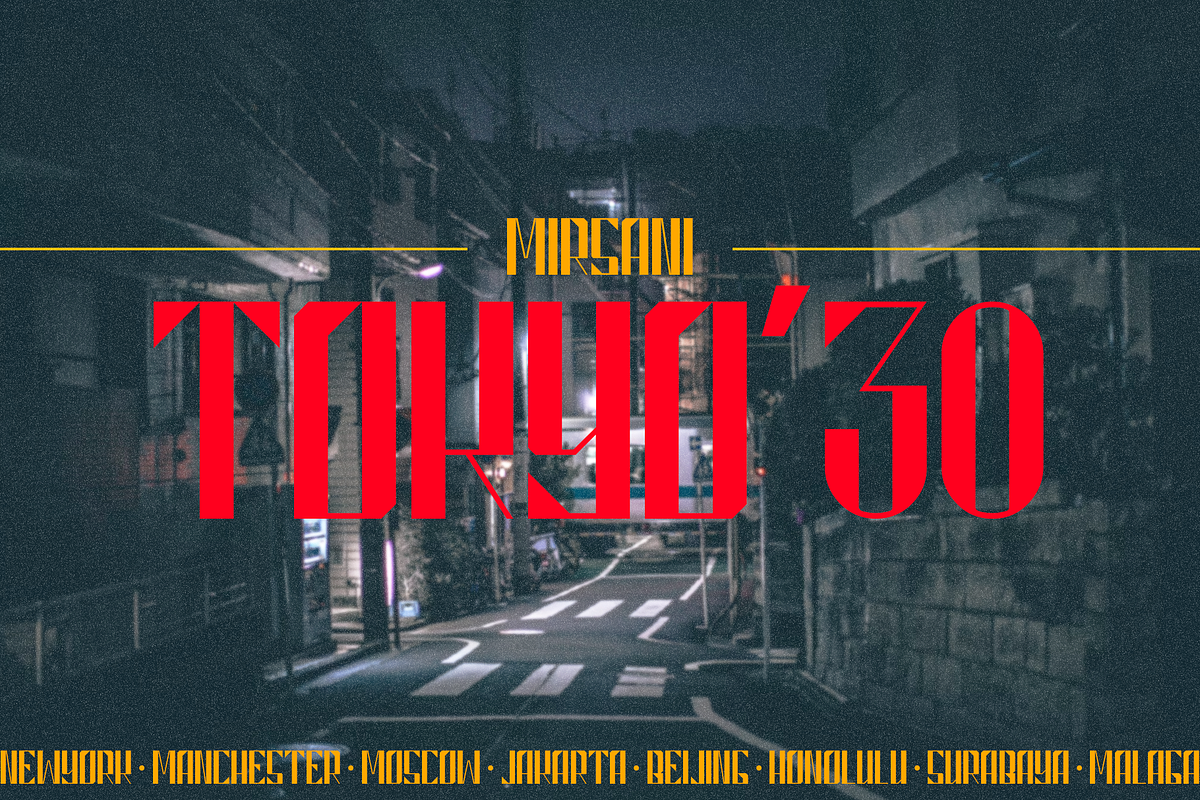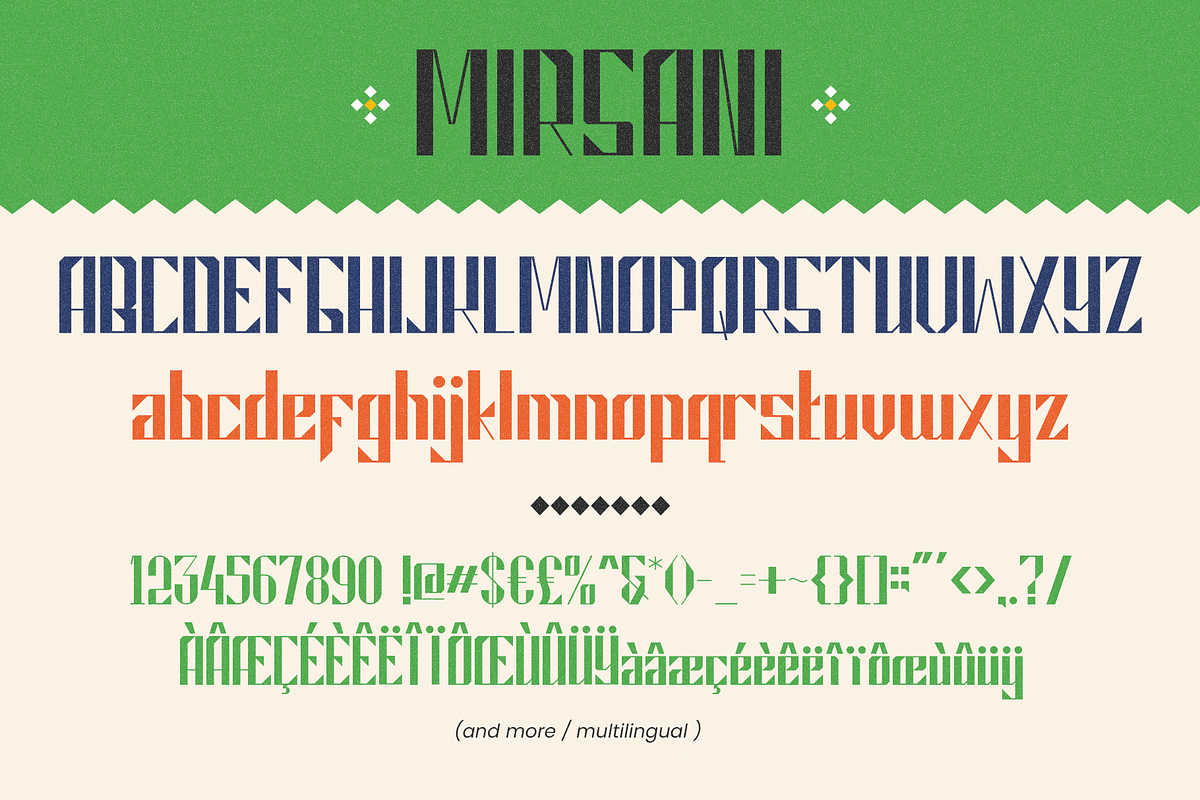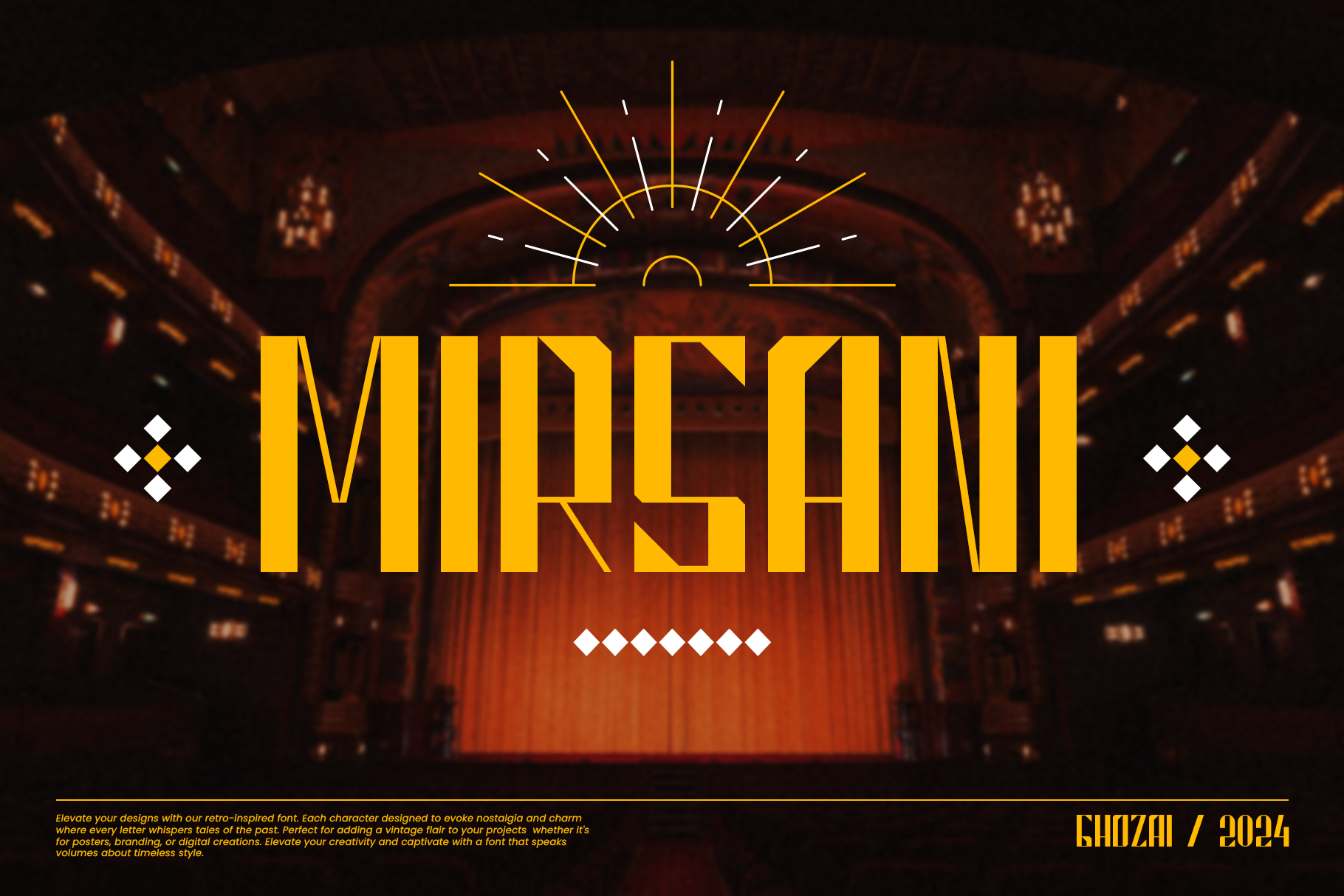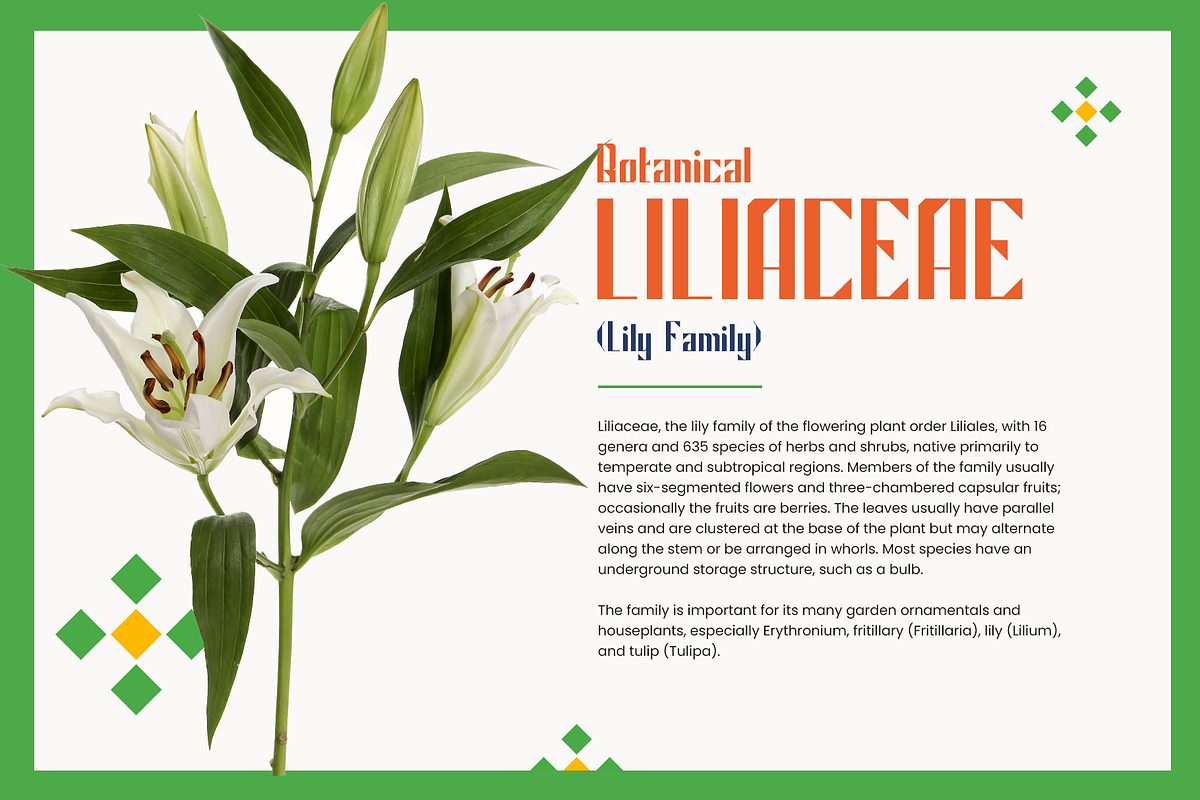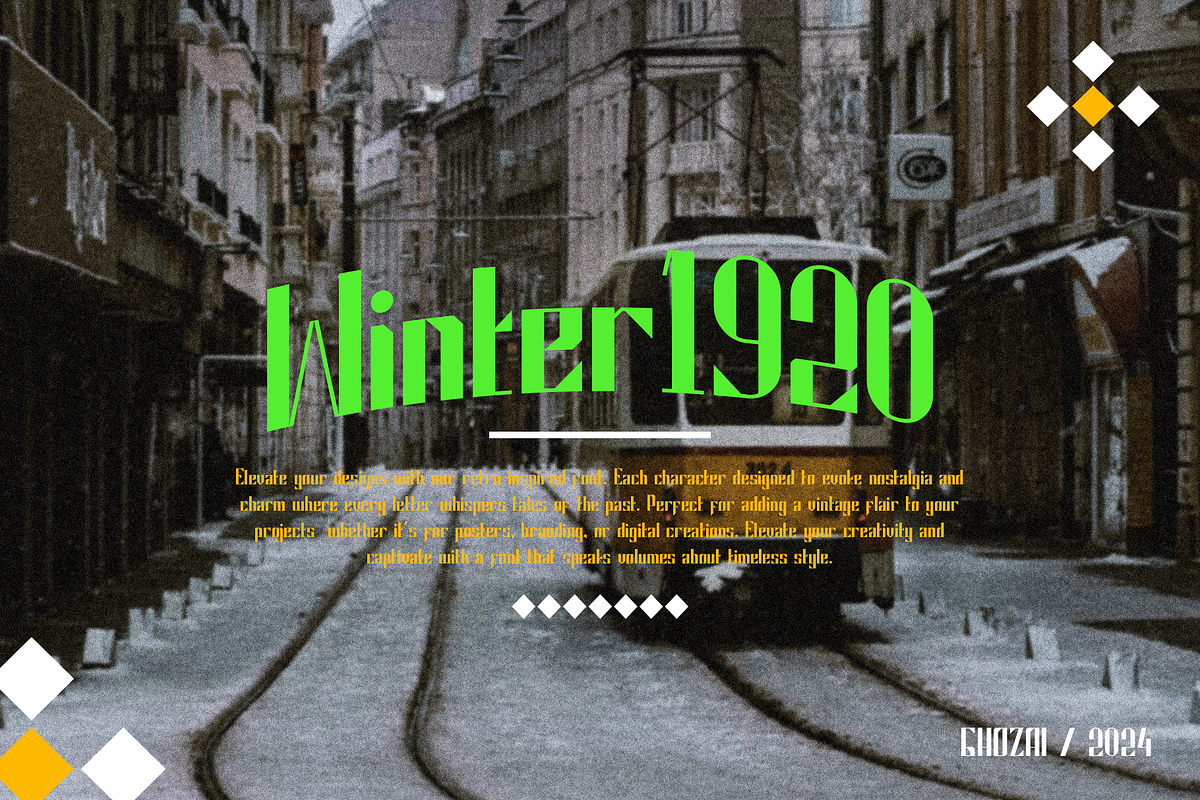
Mirsani font
Elevate your design with retro-inspired font. Each character is designed to evoke nostalgia and charm where every letter whispers tales of the past. Elevate your creativity and activate with a font that speaks volumes about timeless style. Packed with 300+ glyphs (multilingual characters included